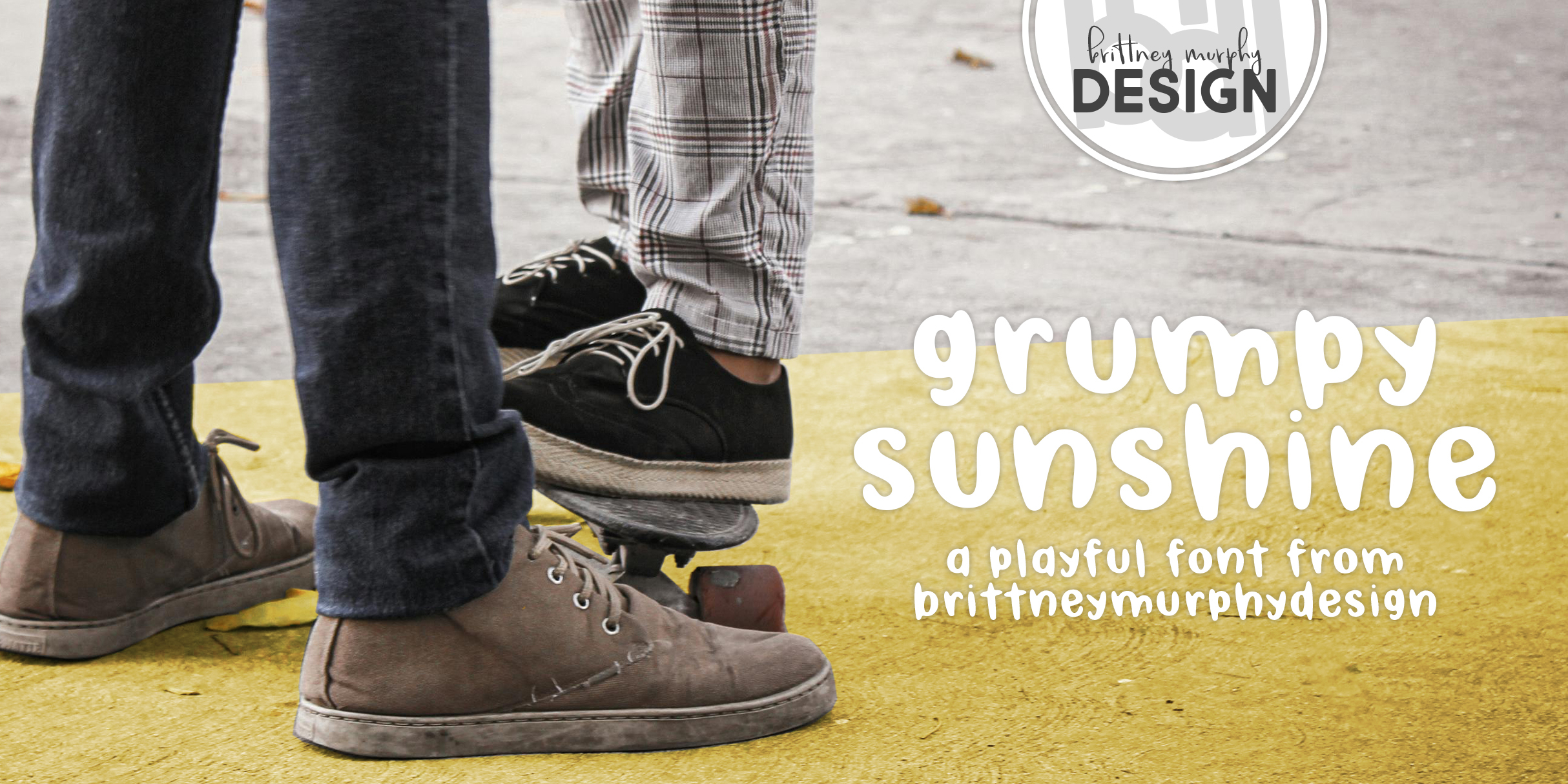
Grumpy Sunshine
Designed by Brittney Murphy, Grumpy Sunshine is a hand display font family published by Brittney Murphy Design.
The Grumpy Sunshine font is a playful handwritten sans with lots of personality. I like to name fonts after book characters sometimes, and while this isn’t named after a particular character, it’s named after one of my favorite story tropes. Use Grumpy Sunshine to add a little fun positivity to your designs! :)
Includes basic alphabet, numbers and punctuation.
Foundry Brittney Murphy Design
Designer Brittney Murphy